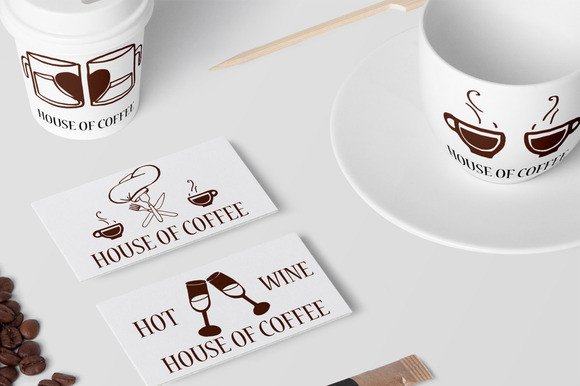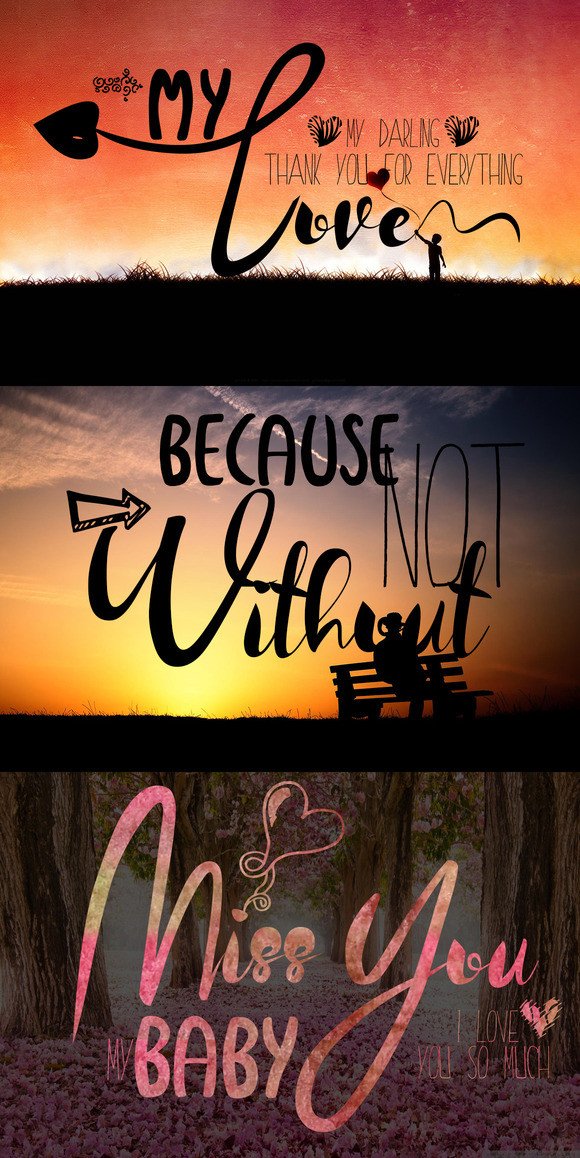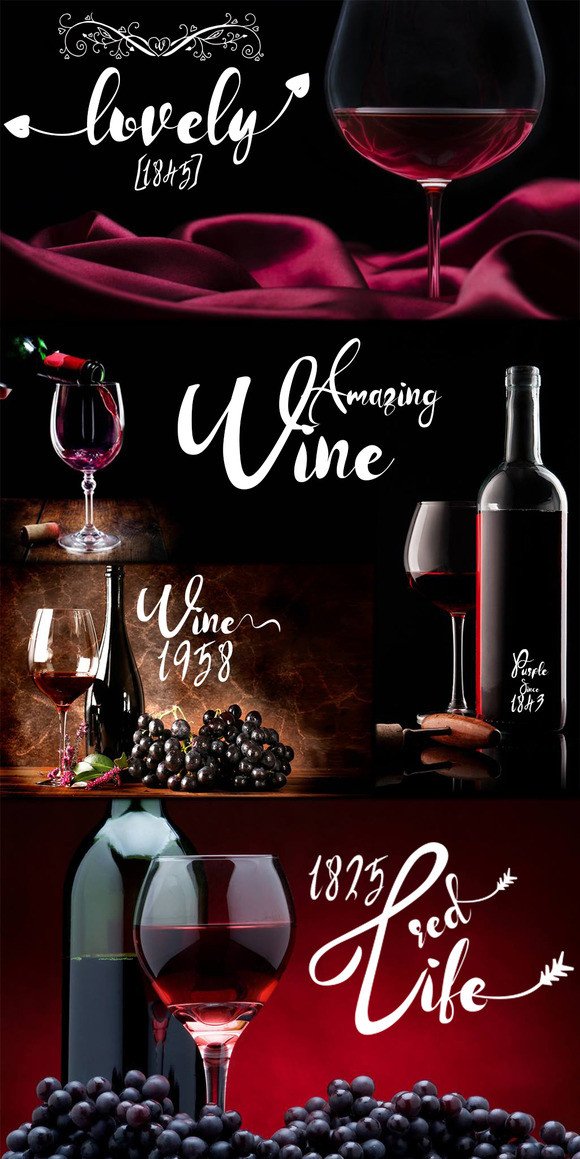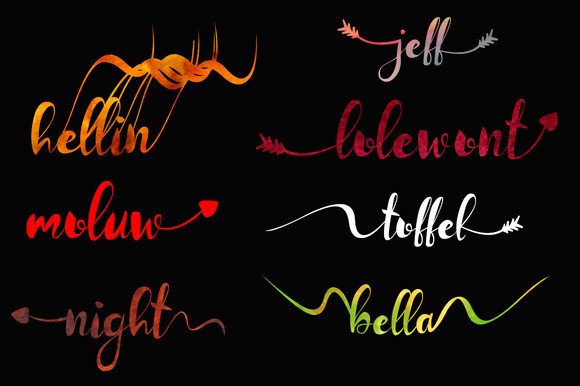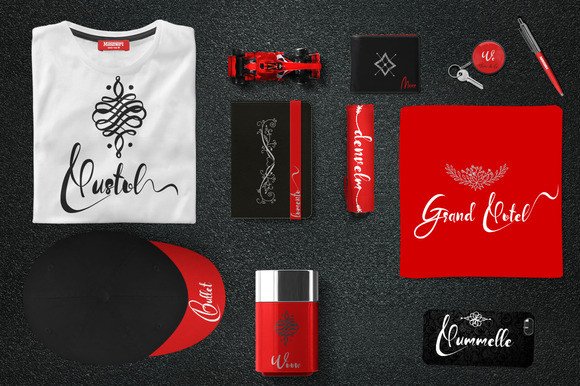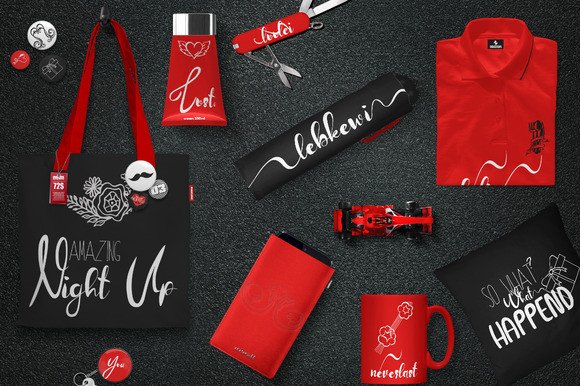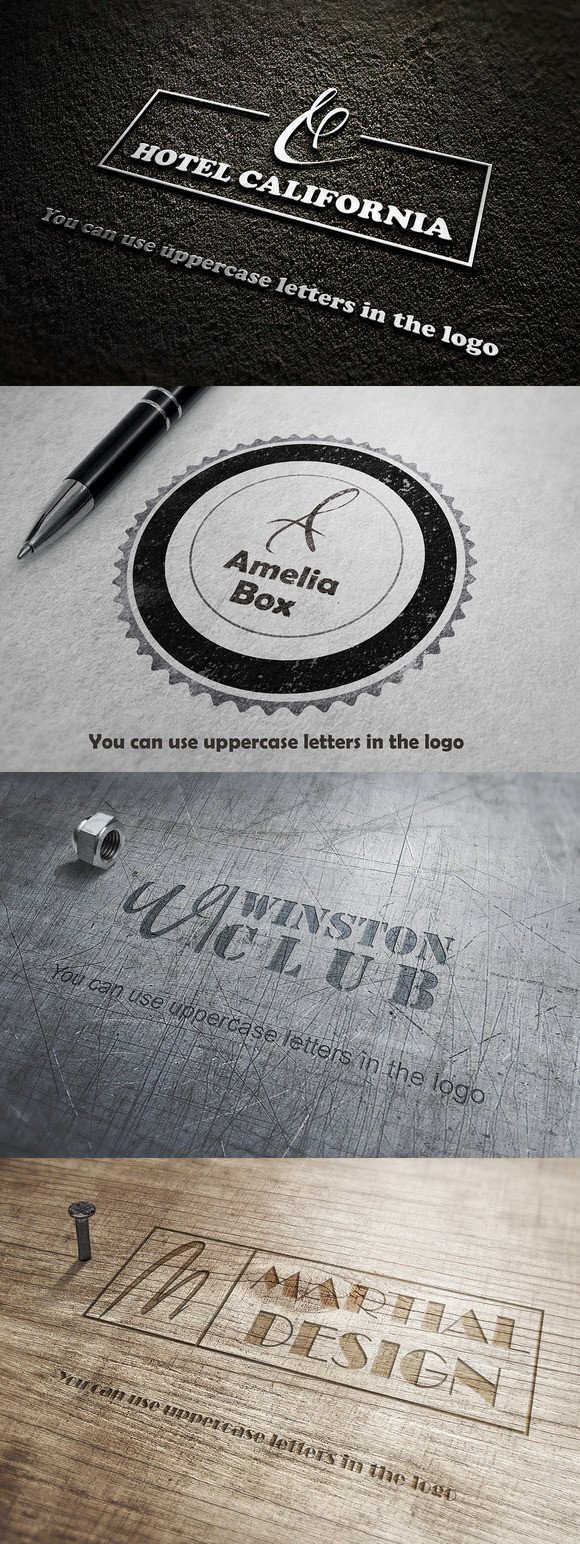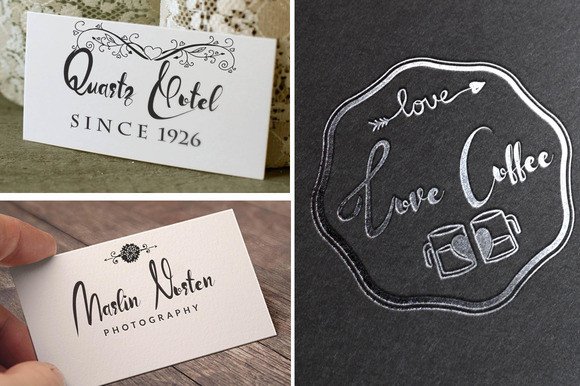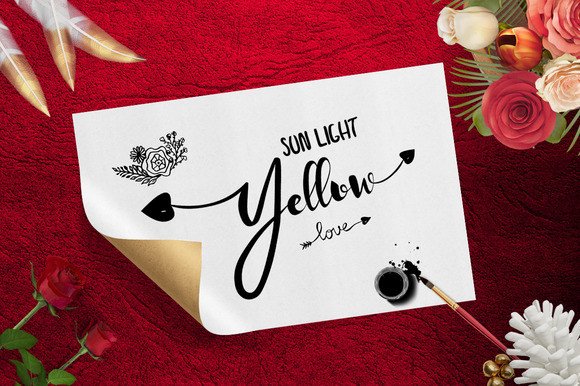
La Alorta Font
About La Alorta Font
La Alorta is a beautiful & playful typeface! Perfect for designing invitations, greeting cards, branding materials, business cards, quotes, posters and more!